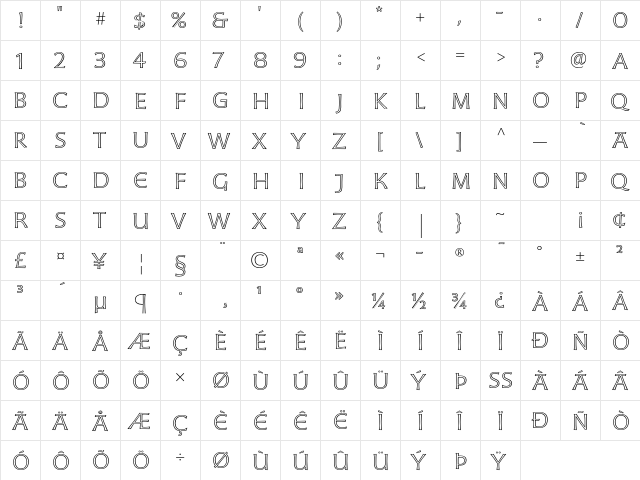
Moonglow Light Extended Font Preview
Moonglow Light Extended
Moonglow Light Extended Font Details
| Style | Light Extended |
| Designer | Michael Harvey |
Design Context for Moonglow Typeface
Moonglow takes a measured approach to typography — its balanced proportions and neutral character make it a reliable workhorse for both digital and print work. The delicate stroke weight brings airiness and refinement to layouts.